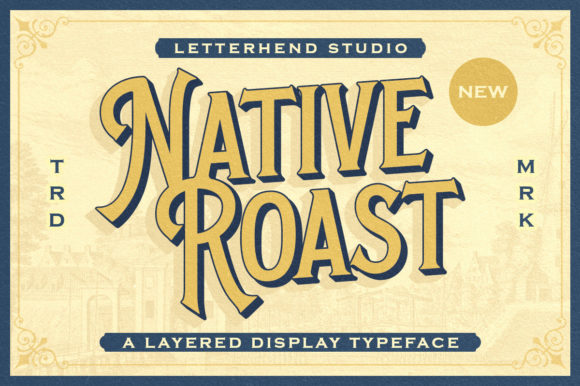
Introducing the Native Roast Font, a display font that exudes boldness and thickness, leaving an undeniable impact on your designs. Inspired by vintage aesthetics, this font possesses a captivating charm that adds character and authenticity to any project it graces.
With its strong and substantial letterforms, Native Roast Font stands out effortlessly, making it the perfect choice for branding, labeling, apparel, and logos. The font's inherent versatility allows it to seamlessly adapt to a wide range of design styles, from retro and rustic to modern and edgy.
Unleash your creativity and let Native Roast Font elevate your designs to new heights. Its commanding presence will capture attention and leave a lasting impression, ensuring your message is conveyed with impact and authority.
Whether you're crafting eye-catching logos, impactful posters, or unique labels, Native Roast Font is your go-to choice for creating designs that resonate and inspire. Its vintage charm lends a touch of nostalgia, while its bold strokes exude a sense of strength and stability.
Dive into the world of Native Roast Font and discover the endless possibilities it holds. From branding projects that demand attention to apparel designs that speak volumes, this font delivers exceptional results every time.
Don't settle for ordinary fonts that blend into the background. Embrace the power of Native Roast Font and let your designs shine with confidence and distinction. Its bold character and timeless appeal will transform your creative visions into captivating realities.